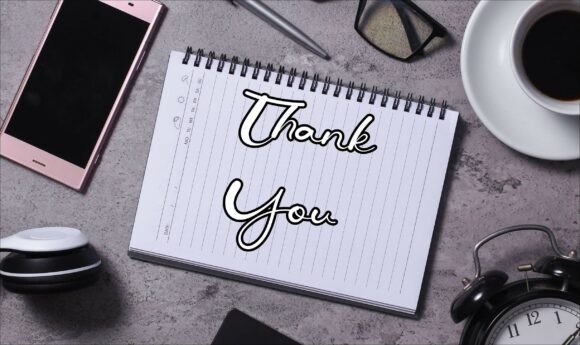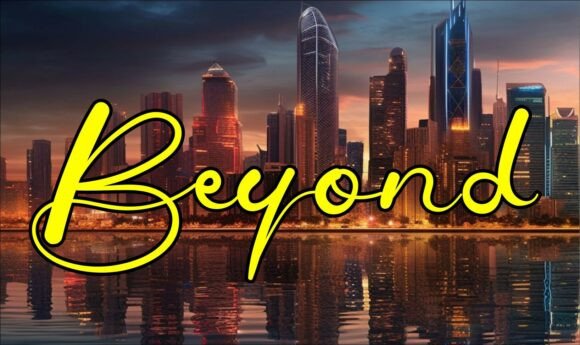
Beyond Font: Elevate Your Designs with Modern Elegance
In the world of typography, a font can make all the difference in creating a lasting impression. Introducing Beyond, a stylish and modern display font that redefines the boundaries of elegant design. With its bold, contemporary touch and clean lines, Beyond is the perfect choice for designers and crafters looking to elevate their projects and make a statement.
The Essence of Beyond Font
Beyond is more than just a font – it’s an experience. Designed to transcend ordinary typography, this font boasts a confident presence that instantly uplifts any design. Its sleek lines, smooth curves, and sophisticated aesthetic make it an ideal choice for a wide range of applications, from branding and logos to headlines, posters, and social media graphics.
Key Features of Beyond Font
- Uppercase & Lowercase Letters: Beyond offers a comprehensive set of uppercase and lowercase letters, ensuring versatility and flexibility in your designs.
- Numbers & Punctuation: The font includes a complete set of numbers and punctuation marks, making it perfect for a variety of design applications.
- Multilingual Support: With Beyond, you can create designs that cater to a global audience, thanks to its extensive multilingual support.
- Stylish Ligatures: Add an extra touch of elegance to your designs with Beyond’s optional stylish ligatures.
- Clean and Modern Aesthetic: The font’s clean lines, smooth curves, and contemporary design ensure a sophisticated look that’s both modern and timeless.
Beyond font is an excellent choice for various design projects, including:
- Branding and Logos: Create a lasting impression with Beyond’s bold, confident presence that perfectly captures the essence of your brand.
- Headlines and Posters: Make a statement with Beyond’s clean lines, smooth curves, and sophisticated aesthetic that demand attention.
- Social Media Graphics: Elevate your social media presence with Beyond’s modern elegance and high readability.
- Fashion Projects: Add a touch of luxury and sophistication to your fashion designs with Beyond’s stylish and contemporary aesthetic.
- Premium Packaging: Make your products stand out with Beyond’s confident presence and sophisticated look.
Why Choose Beyond Font?
In a world where design is everything, Beyond font offers a unique combination of style, elegance, and readability. Here are just a few reasons why Beyond stands out:
- Unique Identity: Beyond gives your work a strong and memorable identity that sets you apart from the competition.
- High Readability: Despite its bold and contemporary design, Beyond remains highly readable, making it perfect for a wide range of applications.
- Versatility: With its comprehensive set of characters, numbers, and punctuation marks, Beyond is an excellent choice for various design projects.
Take Your Designs Further with Beyond
In conclusion, Beyond font is the perfect choice for designers and crafters looking to elevate their projects and make a lasting impression. With its modern elegance, clean lines, and sophisticated aesthetic, Beyond is sure to take your designs to the next level. So why settle for ordinary typography when you can go beyond with Beyond font?